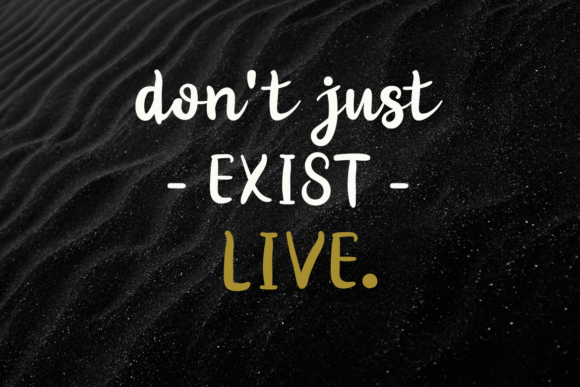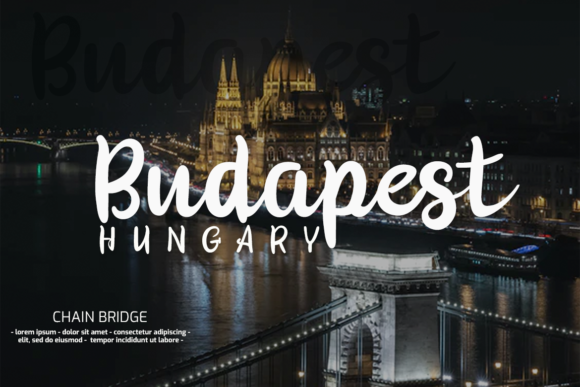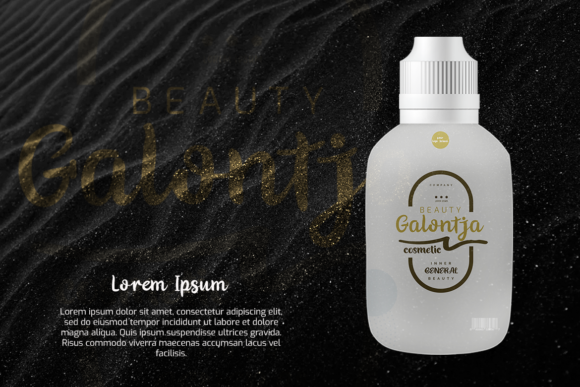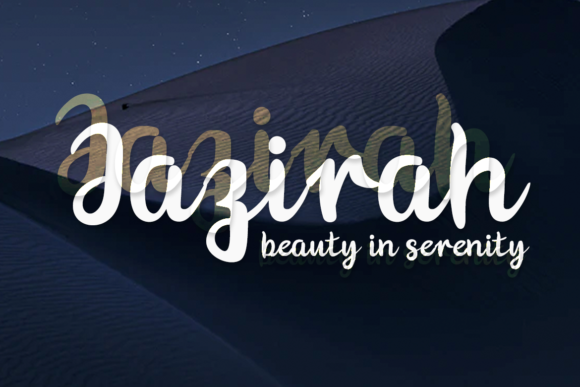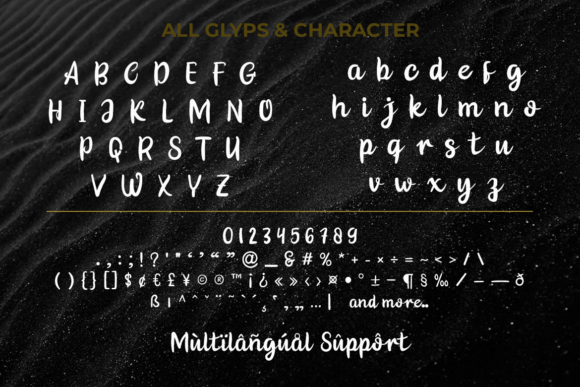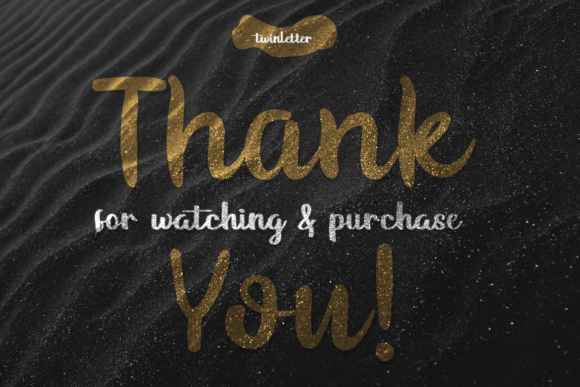
Discover the Elegance of Galont Font: Elevate Your Designs with a Timeless Touch
Are you on the hunt for a font that exudes elegance and sophistication? Look no further than the Galont Font. This stunning, flowing handwritten font is designed to add a touch of refinement to your favorite projects. With its incredibly distinct and timeless style, Galont Font is sure to capture your heart and inspire your creativity.
The Characteristics of Galont Font
Galont Font boasts an elegant touch that sets it apart from other fonts. Its flowing lines and curves create a sense of movement and fluidity, making it perfect for designs that require a sense of dynamism. The font’s unique characteristics include:
- Handwritten style: Galont Font has a beautiful, handwritten feel that adds a personal touch to your designs.
- Elegant lines: The font’s flowing lines and curves create a sense of elegance and sophistication.
- Distinctive style: Galont Font has an incredibly distinct style that sets it apart from other fonts.
- Timeless appeal: The font’s classic design ensures that it will remain timeless and relevant for years to come.
Why Designers and Crafters Love Galont Font
Galont Font has quickly become a favorite among designers and crafters, and for good reason. Here are just a few reasons why:
- Versatility: Galont Font can be used for a wide range of projects, from branding and advertising to packaging and digital media.
- Emotional connection: The font’s elegant and flowing style creates an emotional connection with the viewer, making it perfect for designs that require a personal touch.
- Easy to read: Despite its elegant style, Galont Font is easy to read and understand, making it perfect for body text and headlines.
- Customizable: The font can be easily customized to fit your specific design needs, allowing you to create unique and personalized designs.
How to Use Galont Font in Your Designs
Using Galont Font in your designs is easy. Here are a few tips to get you started:
- Pair it with other fonts: Galont Font pairs well with other fonts, making it easy to create unique and interesting typography combinations.
- Use it for headlines and titles: The font’s elegant style makes it perfect for headlines and titles, where you want to make a statement.
- Add a personal touch: Use Galont Font to add a personal touch to your designs, making them more relatable and engaging.
- Experiment with colors and textures: The font’s versatility allows you to experiment with different colors and textures, creating unique and eye-catching designs.
In conclusion, Galont Font is a stunning, flowing handwritten font that is perfect for designers and crafters looking to add a touch of elegance to their designs. With its incredibly distinct and timeless style, Galont Font is sure to capture your heart and inspire your creativity. Whether you’re working on a branding project, creating packaging, or designing digital media, Galont Font is the perfect choice.